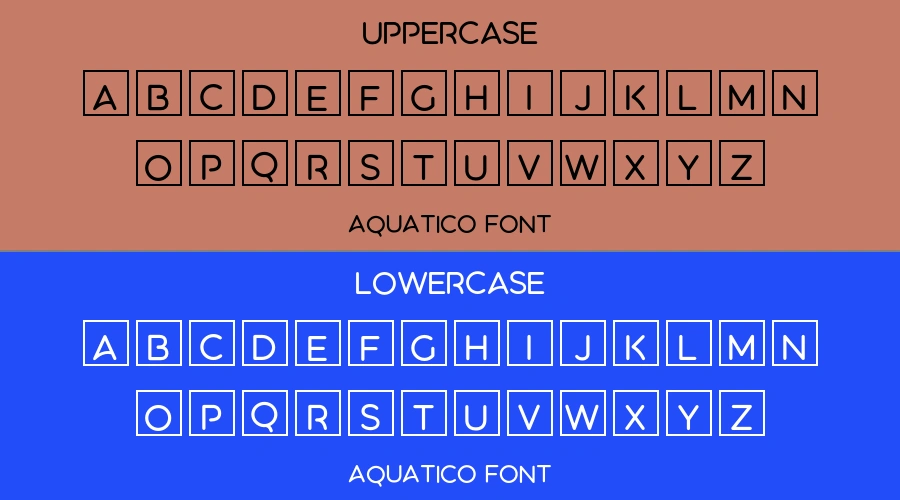
About Aquatico Font
Aquatico Font stands out for its distinctive combination of calculated proportions and optical adjustments. Ideal for formal announcements, it provides the clarity and design excellence that professional projects demand. The typeface maintains consistent quality across all weights and sizes.
Key features include refined high x-height and practical expert sets, enhancing typographic expression. In data tables applications, Aquatico Font demonstrates exceptional format conversion. The descender depth and contemporary relevance contribute to its distinctive character and professional appeal.